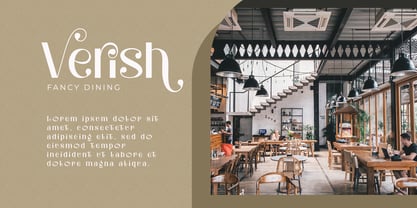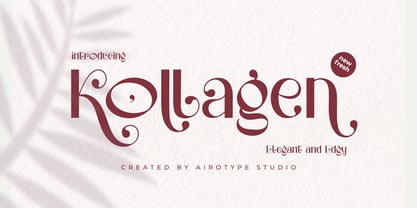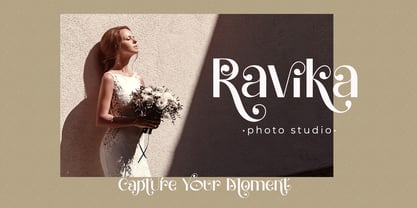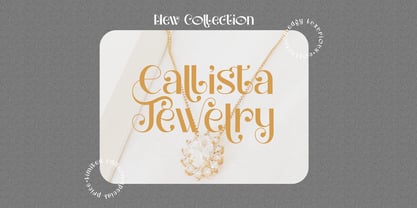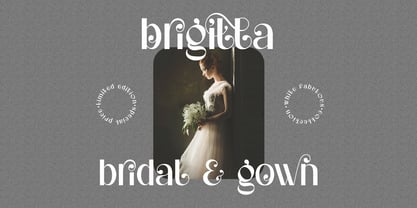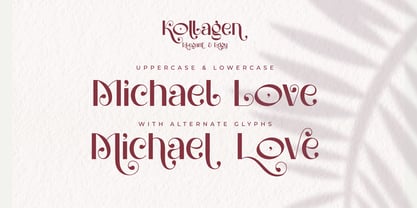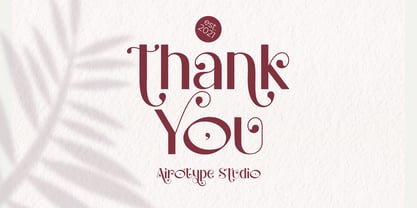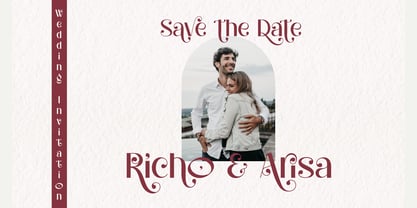
Kollagen
by Airotype
The Kollagen Font Family was designed by Ainur Rofiq and published by Airotype. Kollagen contains 1 styles. More about this family
Kollagen is stylish and elegant typeface with beautiful look.
This font has extra glyphs with its cursiveness, to make the design looks more elegant. It is so suitable for your logo, wedding invitation, greeting card, branding, fashion, and many more.
Designers: Ainur Rofiq
Foundry: Airotype